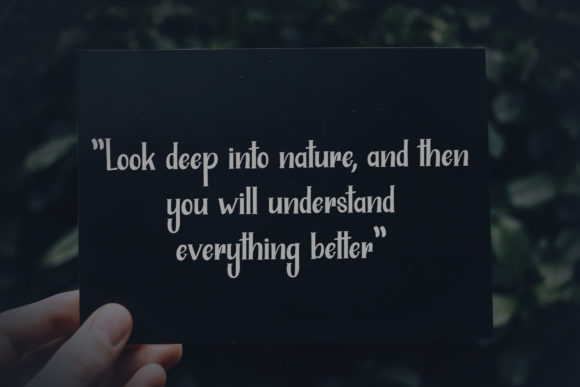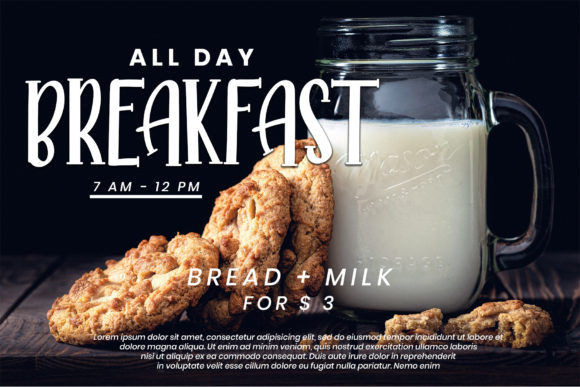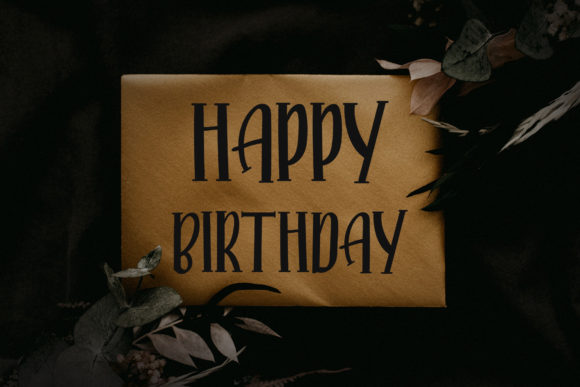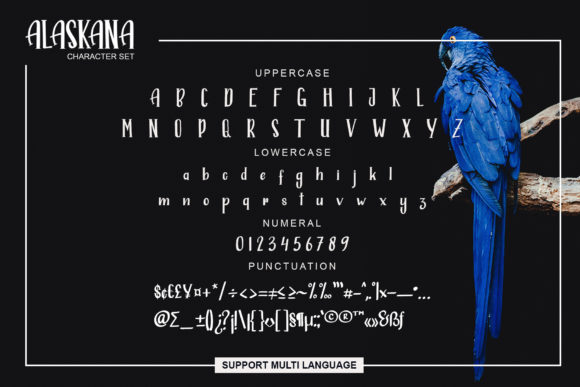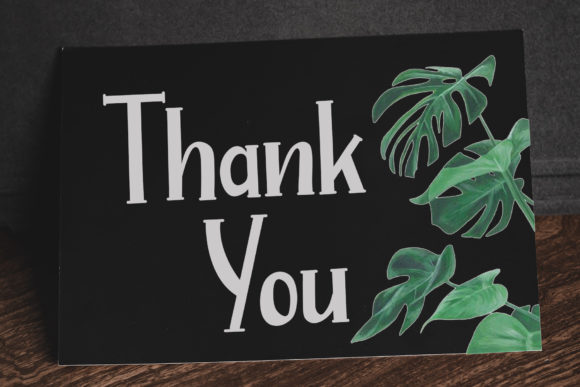
Introducing Alaskana Font: Elevate Your Designs with a Unique Modern Display Font
In the world of design, fonts play a crucial role in conveying messages, evoking emotions, and creating a lasting impression. If you’re a designer, craftsperson, or simply someone who loves to dabble in creative projects, you’re likely always on the lookout for the perfect font to make your work stand out. That’s where Alaskana Font comes in – a cool and unique modern display font that’s sure to take your designs to the next level.
What Makes Alaskana Font So Special?
Alaskana Font boasts a distinctive style that’s perfect for creating spectacular designs. Its modern and sleek aesthetic makes it an ideal choice for a wide range of projects, from branding and logos to wedding designs, social media posts, and advertisements. Whether you’re looking to create something bold and eye-catching or elegant and sophisticated, Alaskana Font has got you covered.
One of the best things about Alaskana Font is its versatility. Its unique style and adaptability make it suitable for a wide range of design projects, including:
- Branding projects: Create a lasting impression with a custom logo or brand identity that showcases your business’s personality and values.
- Logos: Design a unique and memorable logo that sets your business or brand apart from the competition.
- Wedding designs: Add a touch of elegance and sophistication to your wedding invitations, programs, and other stationery.
- Social media posts: Make your social media posts stand out with a font that’s sure to grab attention.
- Advertisements: Create eye-catching ads that drive results with a font that’s designed to impress.
Why Choose Alaskana Font?
With so many fonts to choose from, why should you choose Alaskana Font? Here are just a few reasons:
- Unique style: Alaskana Font has a distinctive style that’s sure to make your designs stand out.
- Versatility: This font is suitable for a wide range of design projects, from branding and logos to wedding designs and social media posts.
- High-quality: Alaskana Font is a high-quality font that’s designed to deliver exceptional results.